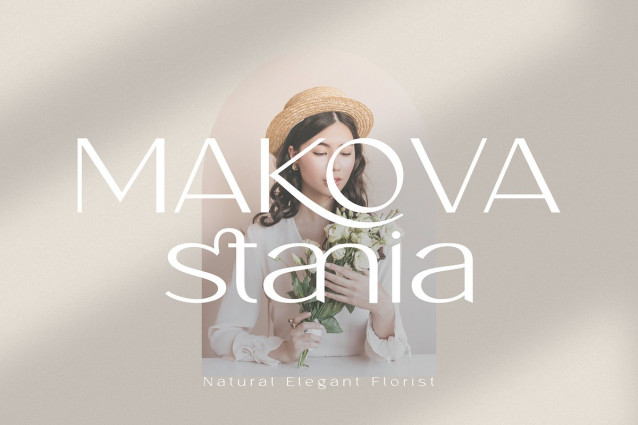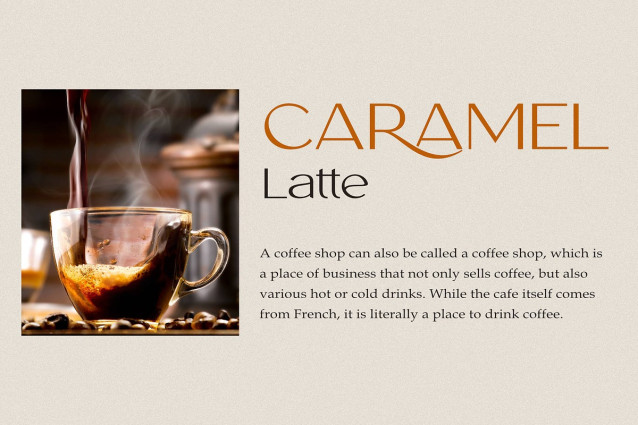
Vastany Font
Vastany Font is a stylish and elegant sans serif font that features various beautiful ligatures and alternates. This font is perfect for formal and elegant design projects, such as logos, branding, business cards, invitations, and more. Vastany is easy to use and customize. You can access the ligatures and alternates through OpenType features or by using a glyphs panel. You can also mix and match the uppercase and lowercase letters to create stunning combinations. Vastany comes with a full set of characters, including numbers, punctuation, symbols, and multilingual support.